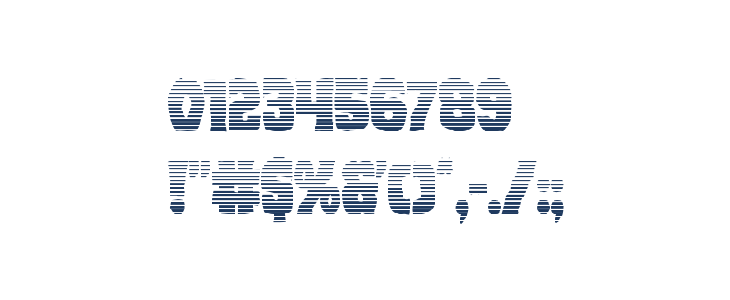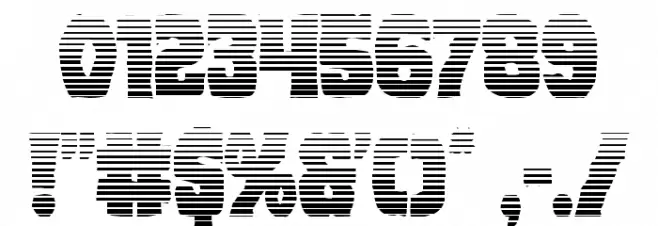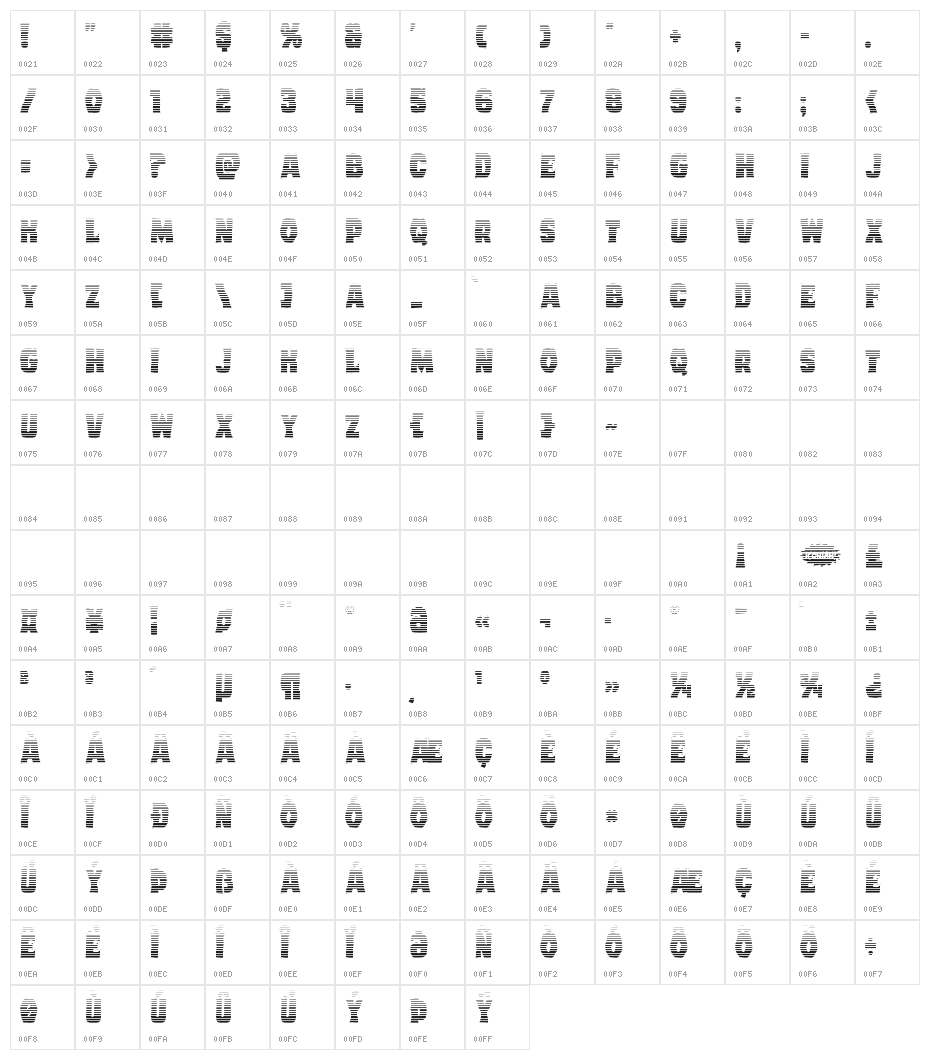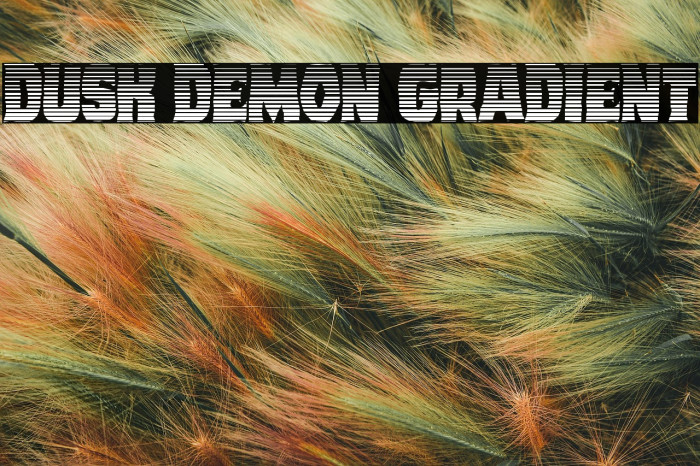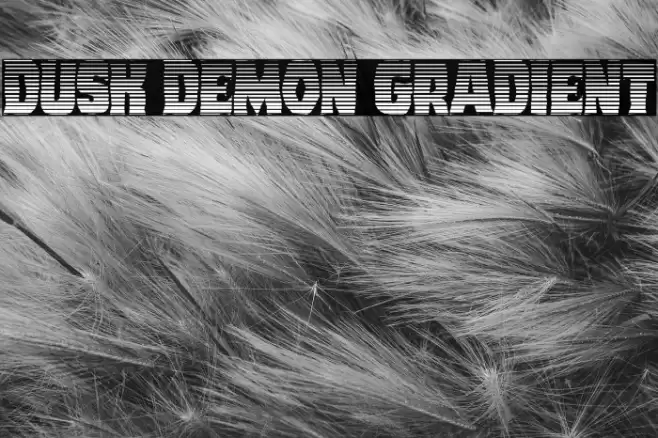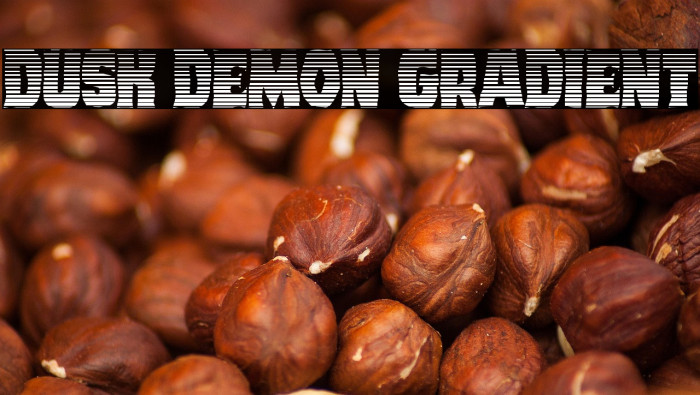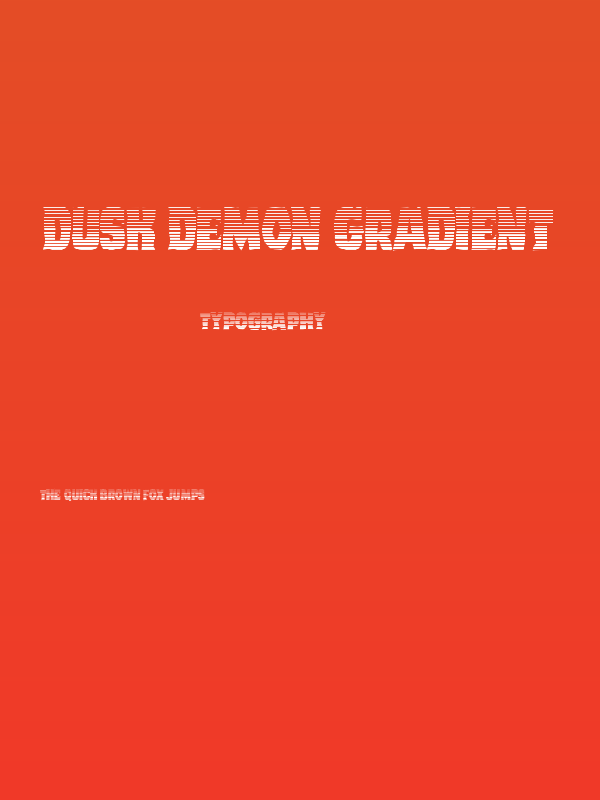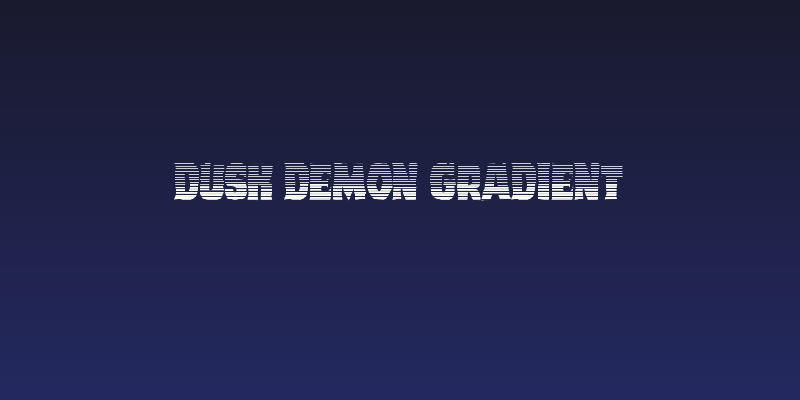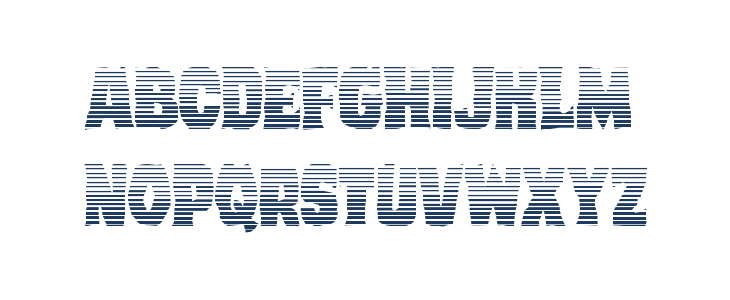
Dusk Demon Gradient Font
Dusk Demon Gradient Description
This font features a bold, dynamic design with a unique gradient effect created by horizontal lines running through each character. The uppercase and lowercase letters, as well as numbers and special characters, all share this distinctive style, giving the font a cohesive and striking appearance. The lines create a sense of movement and depth, making it ideal for eye-catching designs. The characters are wide and robust, with a strong presence that commands attention. This font is perfect for projects that require a bold statement, combining modern aesthetics with a touch of artistic flair.
| Proposed Projects | Ideal for posters, album covers, branding, and any design needing a bold, artistic touch. |